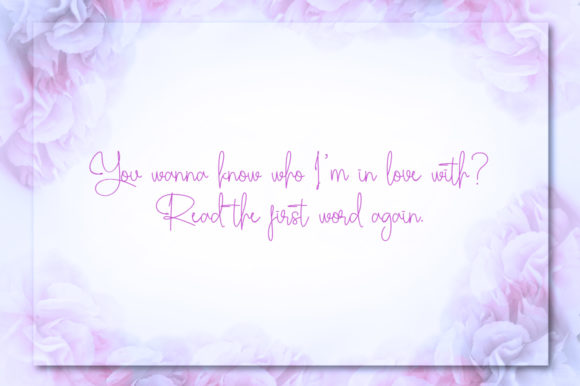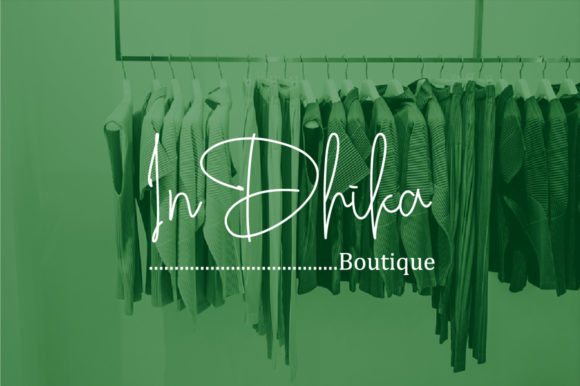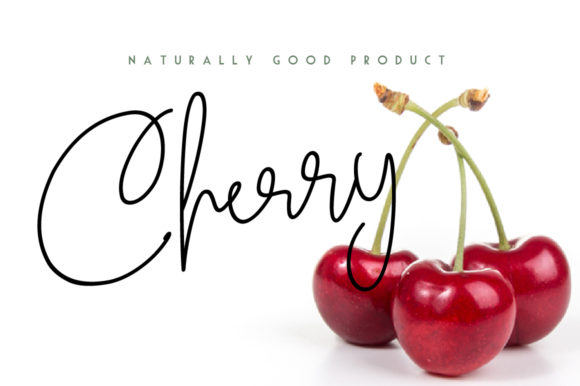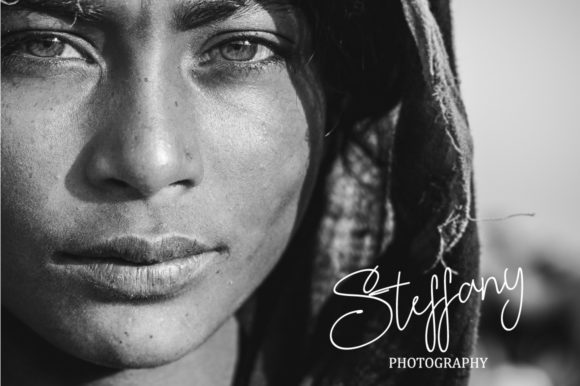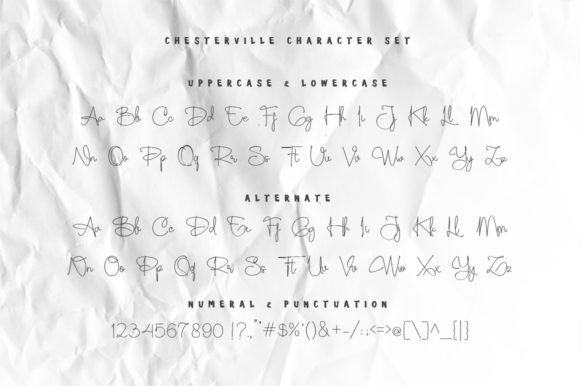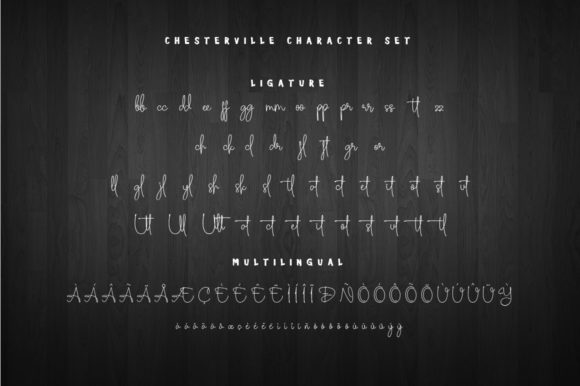
Introducing Chesterville Font: The Elegant Handwritten Font for Creative Projects
The Chesterville font is a stunning example of elegant handwritten typography, designed to elevate your creative projects to new heights. With its attractive and refined look, this font is perfect for a wide range of applications, including branding, logos, invitations, quotes, blogs, and much more. In this article, we’ll explore the features and benefits of the Chesterville font, and why it’s a must-have for designers and crafters.
What Makes Chesterville Font Stand Out?
The Chesterville font boasts a unique and sophisticated design, characterized by flowing lines, subtle curves, and a touch of elegance. Its handwritten style gives it a personal and approachable feel, making it perfect for projects that require a human touch. The font’s versatility allows it to be used in various contexts, from formal and professional to casual and creative.
Key Features of Chesterville Font
- Elegant Handwritten Design: The Chesterville font features a beautiful, handwritten design that’s perfect for creating a lasting impression.
- Attractive and Refined Look: The font’s attractive and refined look makes it suitable for a wide range of applications, from luxury brands to personal projects.
- Versatile and Flexible: The Chesterville font can be used in various contexts, including branding, logos, invitations, quotes, blogs, and more.
- Easy to Read: The font’s clear and legible design ensures that your message is conveyed effectively, making it perfect for body text and headlines.
Use Cases for Chesterville Font
The Chesterville font is an excellent choice for a variety of creative projects, including:
- Branding and Logos: Create a lasting impression with a custom logo or brand identity that exudes elegance and sophistication.
- Invitations and Events: Add a touch of class to your invitations, wedding cards, and event materials with the Chesterville font.
- Quotes and Typography: Use the Chesterville font to create stunning typographic quotes, posters, and prints that inspire and motivate.
- Blogs and Websites: Enhance your online presence with a beautiful and elegant font that’s perfect for blog posts, articles, and website content.
Why Designers and Crafters Love Chesterville Font
The Chesterville font has become a favorite among designers and crafters due to its unique combination of style, versatility, and ease of use. Here are just a few reasons why:
- Unique and Distinctive: The Chesterville font offers a fresh and distinctive look that sets it apart from other fonts.
- High-Quality Design: The font’s high-quality design ensures that it looks great in various contexts, from print to digital.
In conclusion, the Chesterville font is an exceptional choice for designers and crafters looking for an elegant handwritten font that can elevate their creative projects. With its attractive look, versatility, and ease of use, this font is perfect for a wide range of applications. Whether you’re working on a branding project, creating invitations, or designing typographic quotes, the Chesterville font is sure to impress.